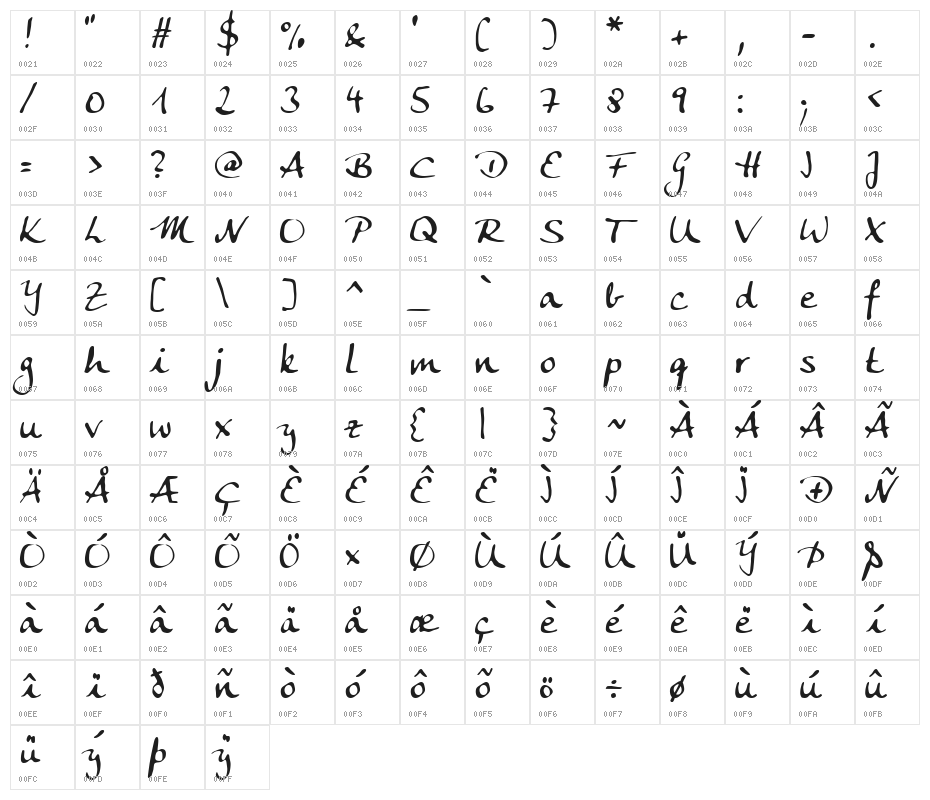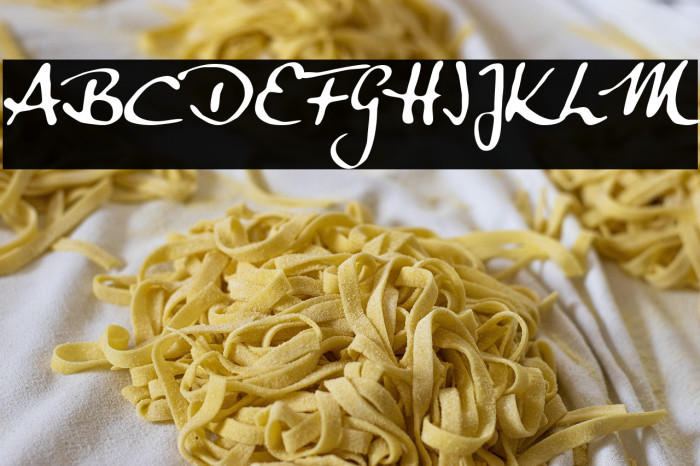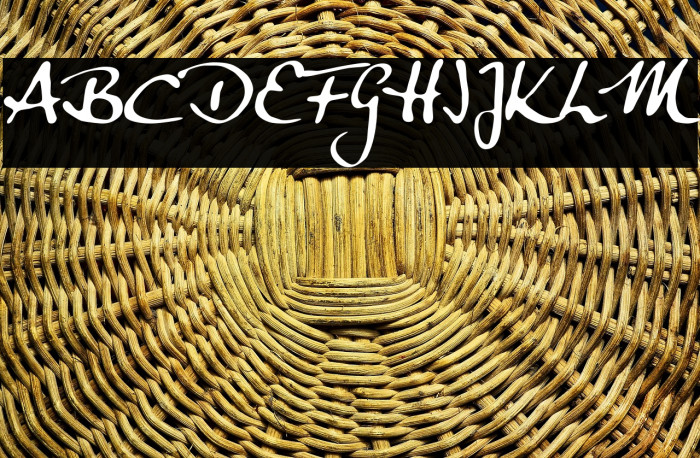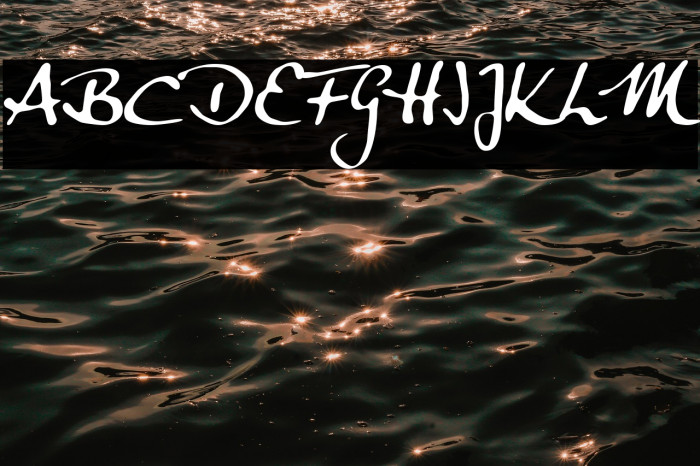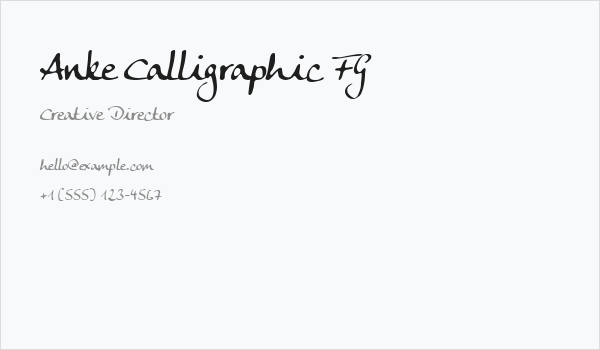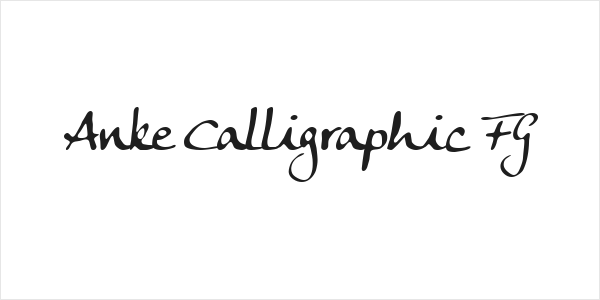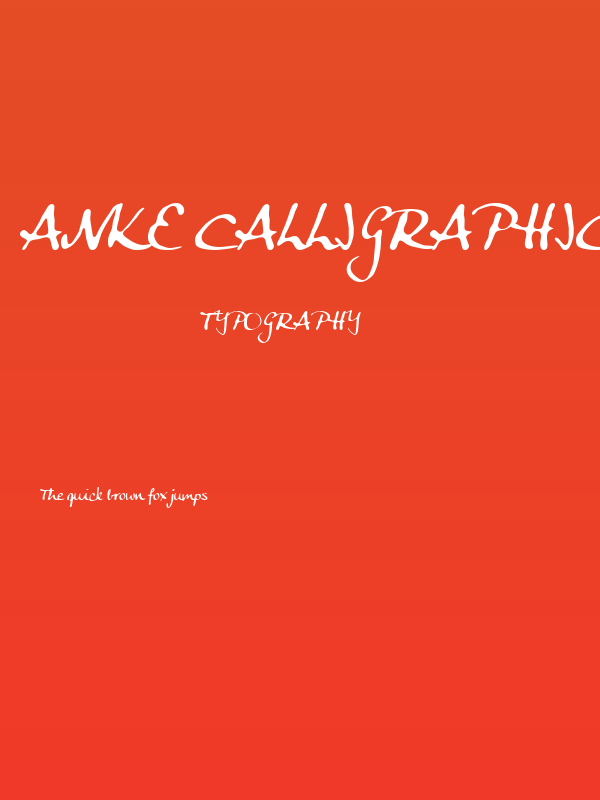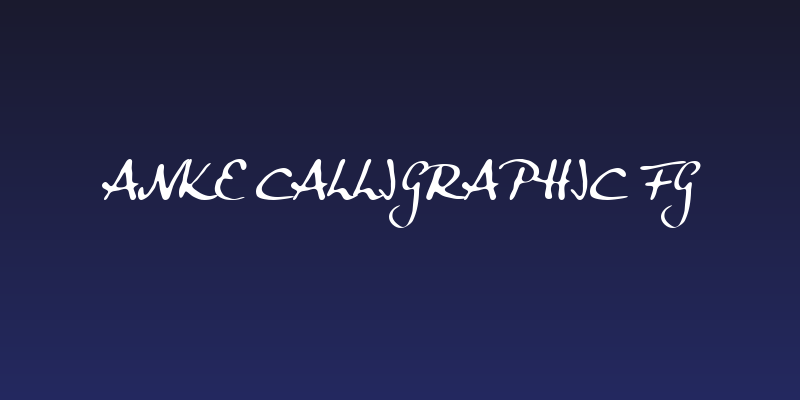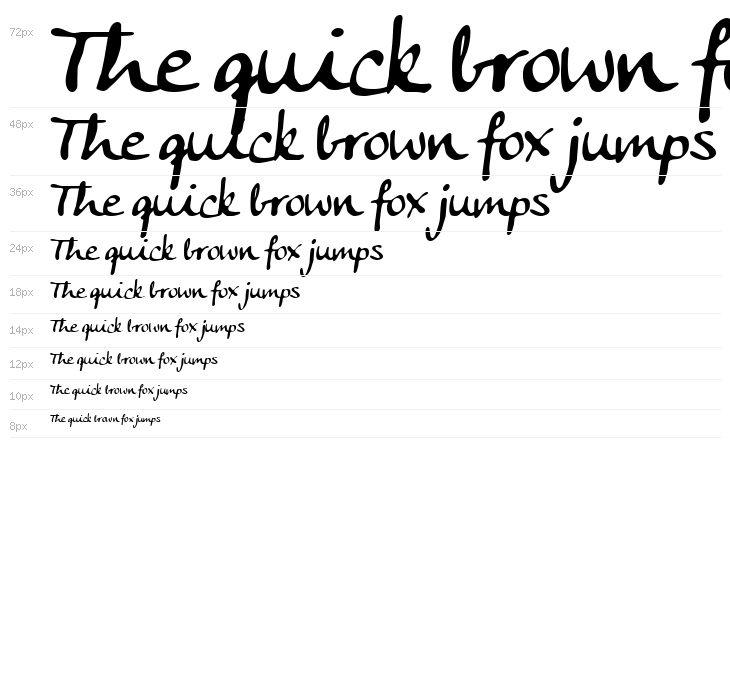
Anke Calligraphic FG Font
Anke Calligraphic FG Description
This font features a dynamic and fluid calligraphic style, characterized by its elegant and flowing strokes. The uppercase letters exhibit a bold presence with sweeping curves and distinctive flourishes, while the lowercase letters maintain a consistent rhythm with a slightly more restrained flair. Numbers and special characters are crafted with the same attention to detail, ensuring a cohesive look across all glyphs. The overall appearance is both artistic and legible, making it suitable for creative projects that require a touch of sophistication.